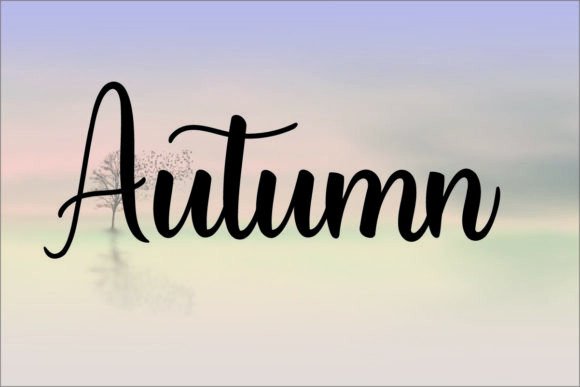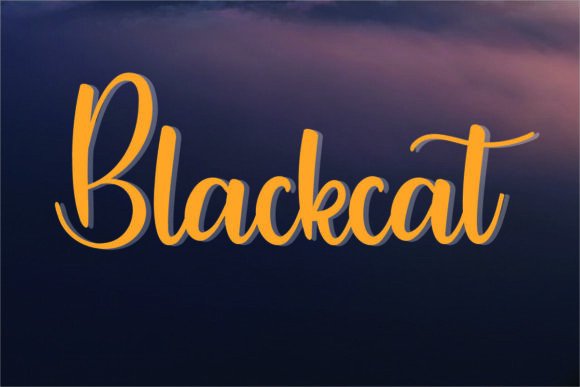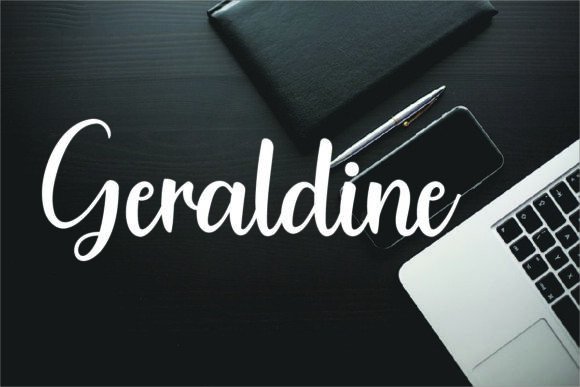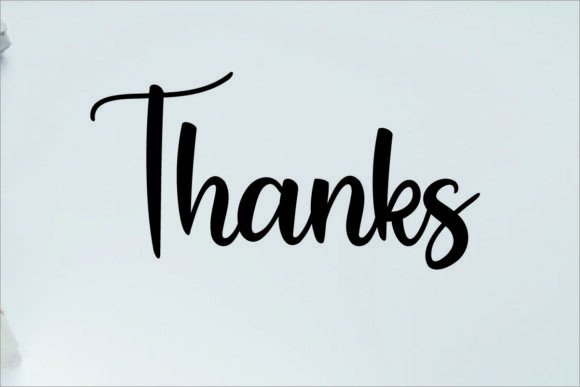
Introducing Anchor Font: The Sweet and Cursive Handwritten Font for Your Design Needs
Are you looking for a font that can add a touch of elegance and whimsy to your designs? Look no further than Anchor Font, a beautiful and cursive handwritten font that’s perfect for a variety of projects. With its gentle and sweet appearance, Anchor Font is sure to make your designs stand out and leave a lasting impression.
The Characteristics of Anchor Font
Anchor Font is a unique and charming font that’s characterized by its cursive and handwritten style. The font features flowing lines and curves that give it a soft and romantic touch. Its elegant appearance makes it perfect for designs that require a touch of sophistication and refinement.
One of the standout features of Anchor Font is its versatility. The font can be used for a wide range of design projects, from branding and logos to wedding materials and greeting cards. Its casual yet elegant appearance makes it perfect for designers who want to create designs that are both stylish and approachable.
Why Choose Anchor Font for Your Design Projects?
There are many reasons why Anchor Font is an excellent choice for your design projects. Here are just a few:
• Unique and eye-catching: Anchor Font is a one-of-a-kind font that’s sure to grab attention and make your designs stand out.
• Versatile: The font can be used for a wide range of design projects, from formal to informal.
• Elegant and refined: Anchor Font features a sophisticated and elegant appearance that’s perfect for designs that require a touch of luxury.
• Easy to read: Despite its cursive style, Anchor Font is easy to read and understand, making it perfect for body text and headlines.
How to Use Anchor Font in Your Design Projects
Anchor Font is a versatile font that can be used in a variety of design projects. Here are some ideas to get you started:
• Branding and logos: Use Anchor Font to create a unique and memorable brand identity that’s both elegant and approachable.
• Wedding materials: Anchor Font is perfect for wedding invitations, programs, and other materials that require a touch of romance and sophistication.
• Greeting cards: Use Anchor Font to create beautiful and heartfelt greeting cards for special occasions.
• Fashion and lookbooks: Anchor Font is a great choice for fashion designers who want to create stylish and elegant lookbooks and marketing materials.
Tips for Pairing Anchor Font with Other Fonts
When pairing Anchor Font with other fonts, it’s essential to choose fonts that complement its elegant and cursive style. Here are some tips to keep in mind:
• Pair with sans-serif fonts: Pairing Anchor Font with sans-serif fonts like Arial or Helvetica can create a nice contrast and add visual interest to your designs.
• Choose fonts with a similar feel: If you want to create a cohesive look, choose fonts that have a similar feel to Anchor Font, such as other cursive or handwritten fonts.
• Experiment with font sizes: Playing with font sizes can help create visual hierarchy and add emphasis to your designs.
Anchor Font is a beautiful and versatile font that’s perfect for designers who want to add a touch of elegance and whimsy to their designs. With its cursive and handwritten style, Anchor Font is sure to make your designs stand out and leave a lasting impression. Whether you’re working on a branding project, wedding materials, or greeting cards, Anchor Font is an excellent choice.